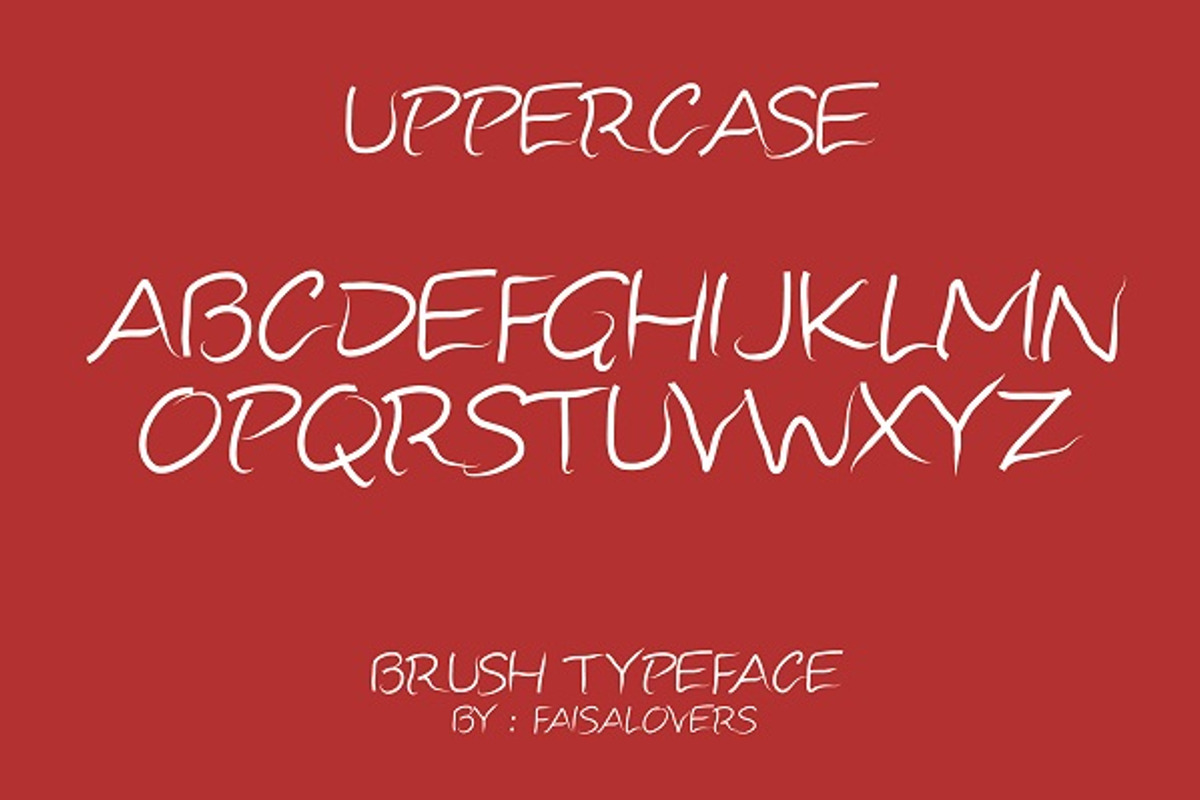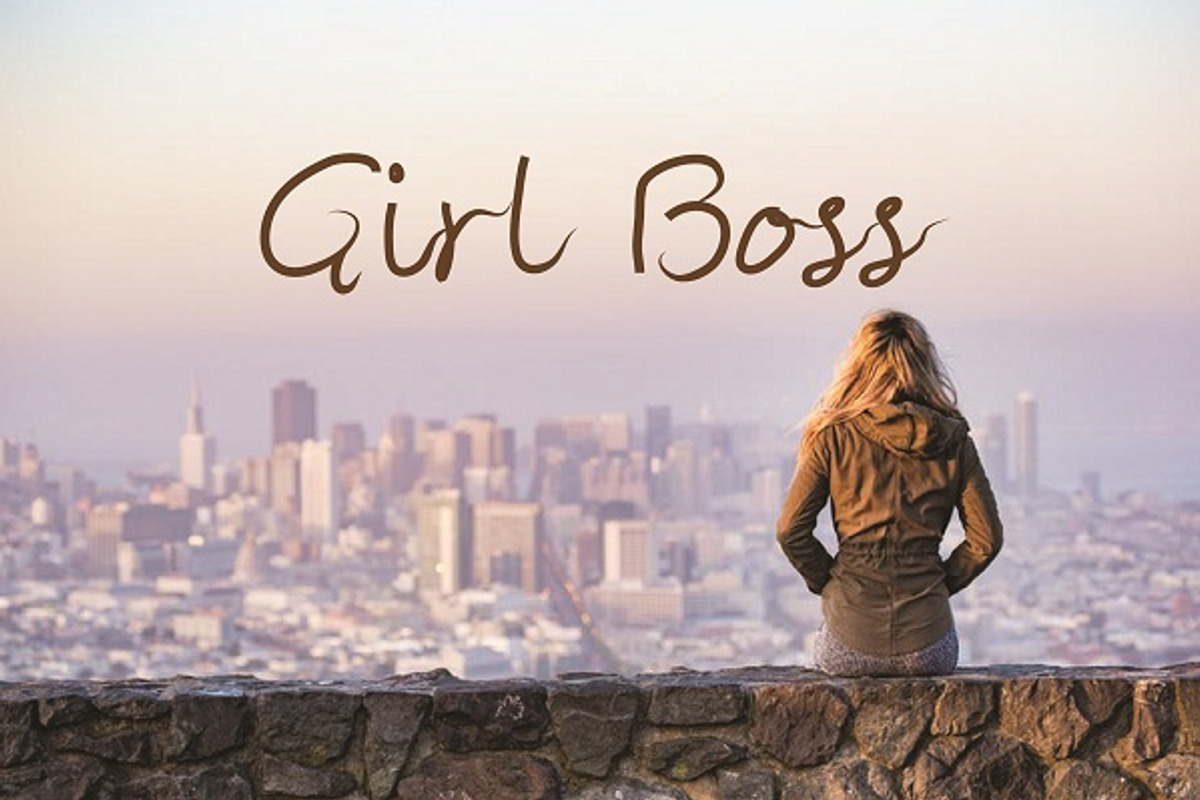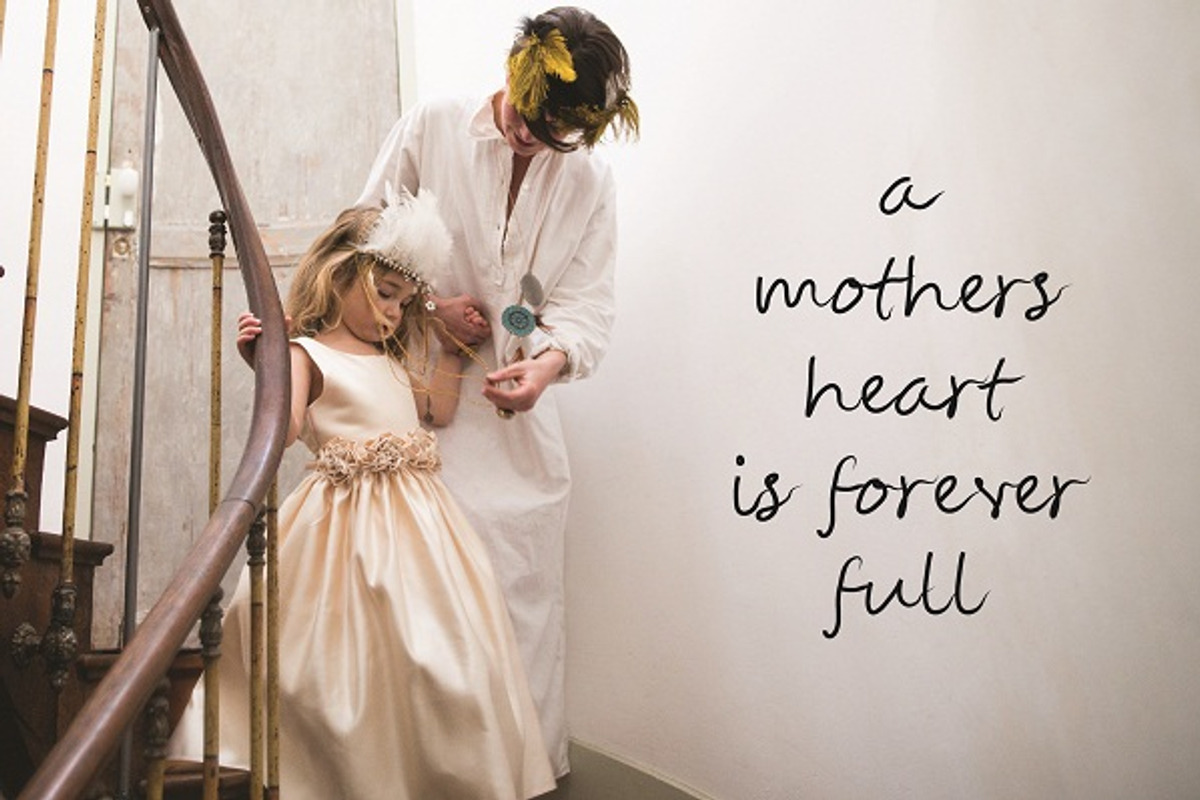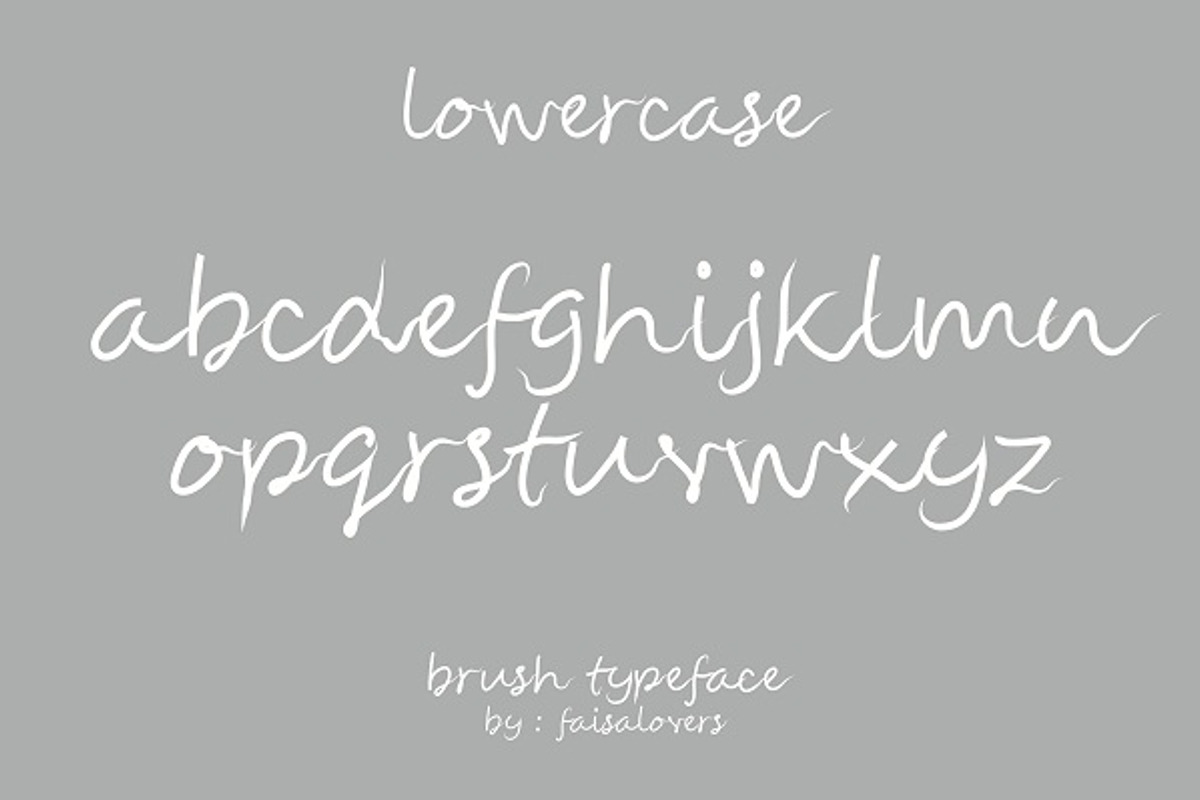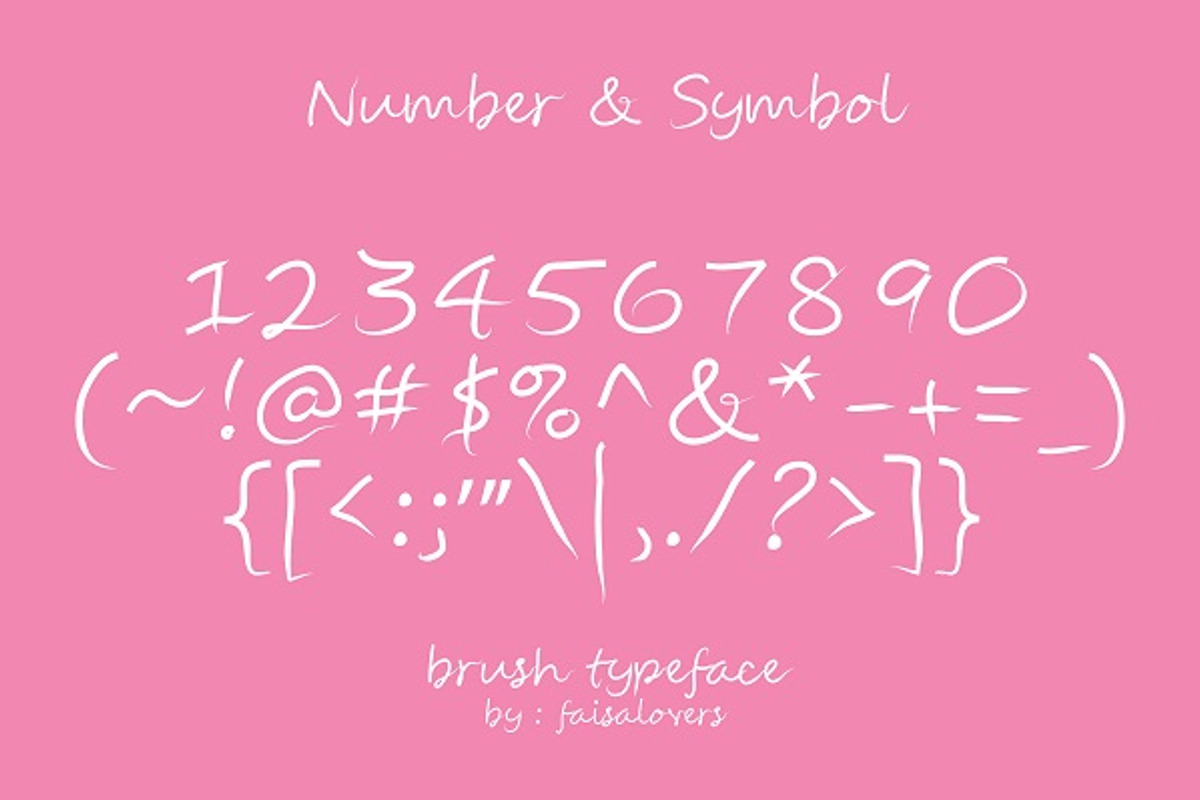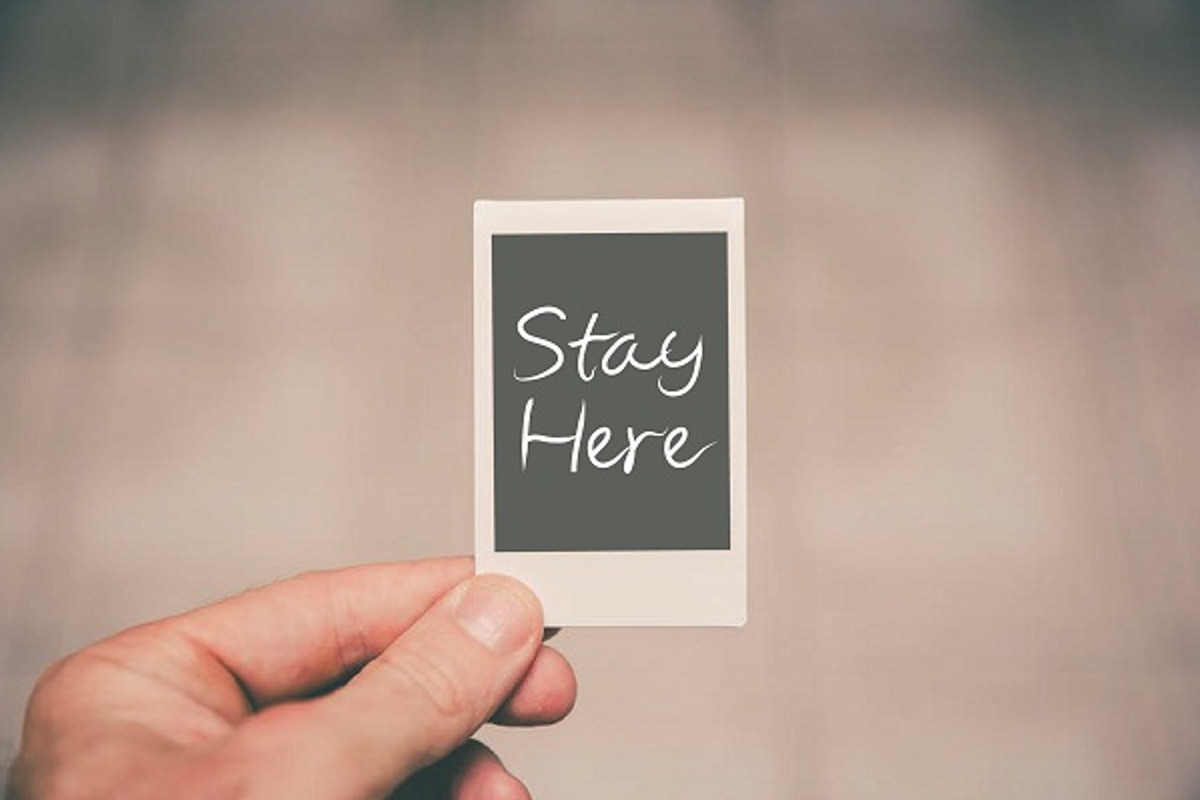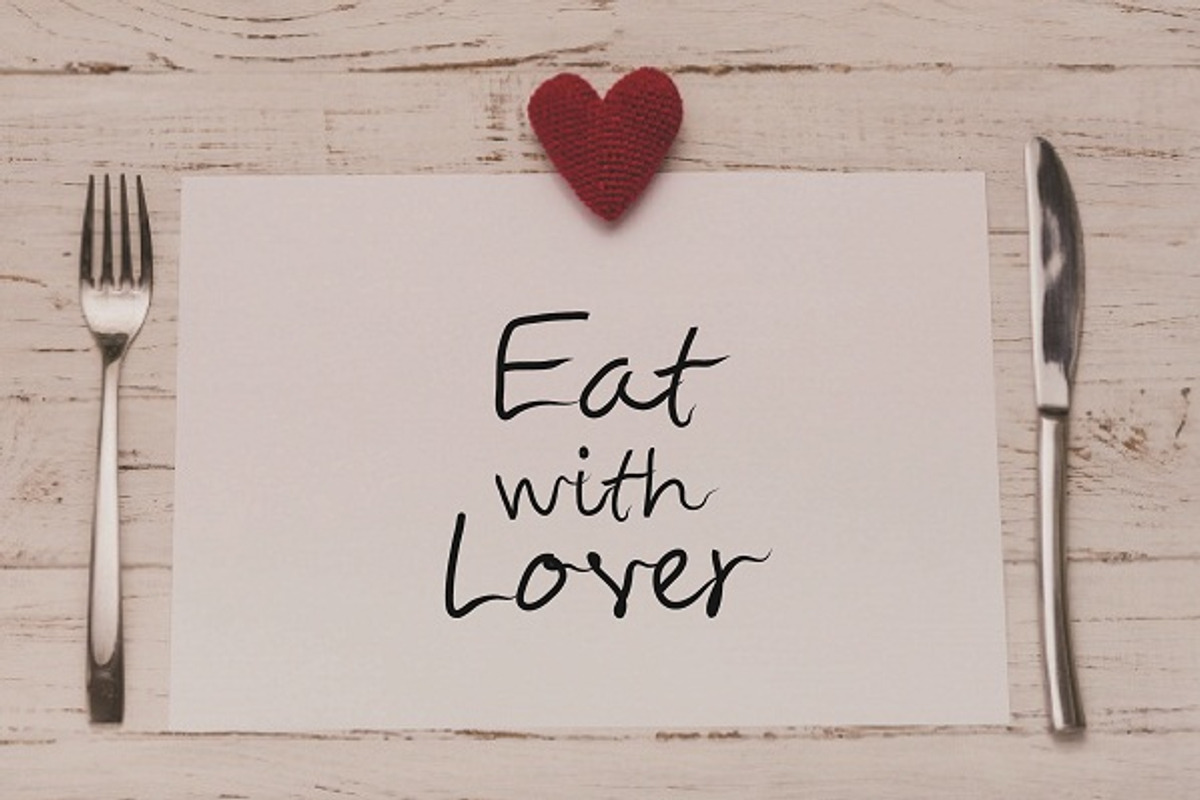
Sister font
sister font the best font.
Why Sister font is worth a look
Sister font by khalwa.studio fits naturally into Branding, posters, packaging, typography.